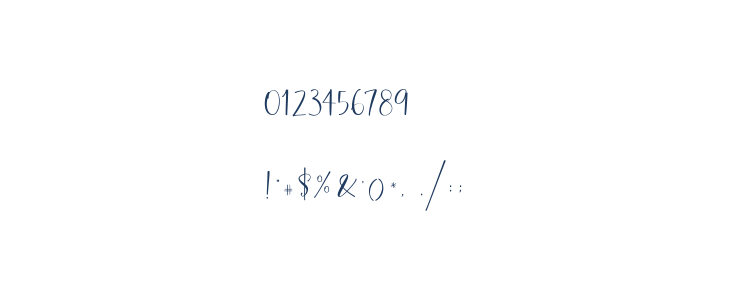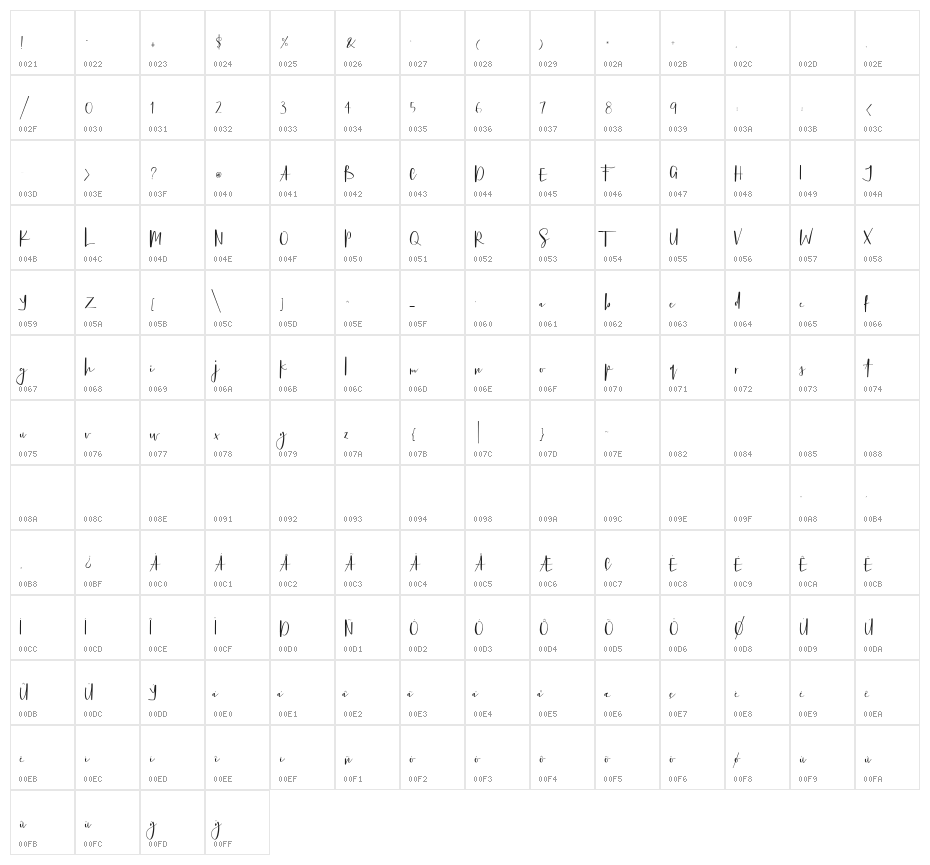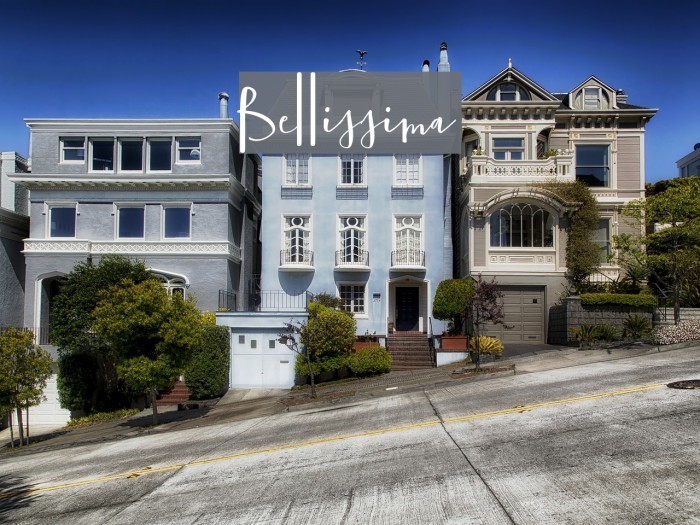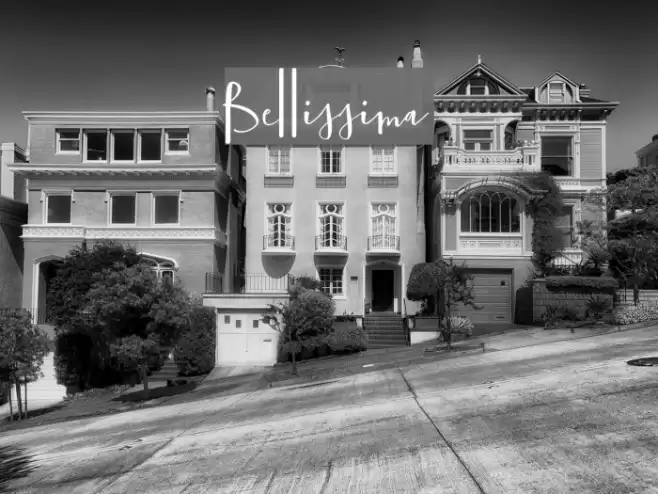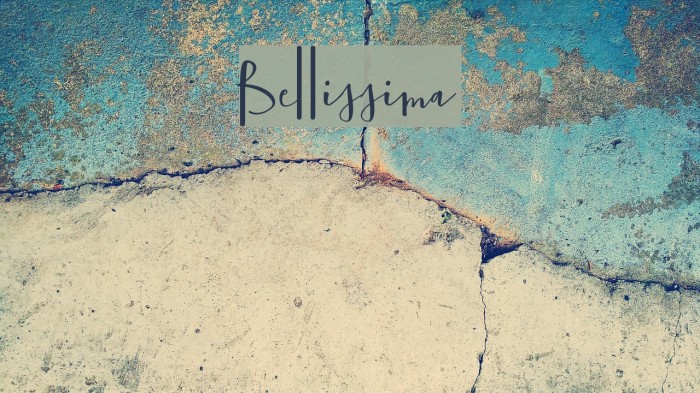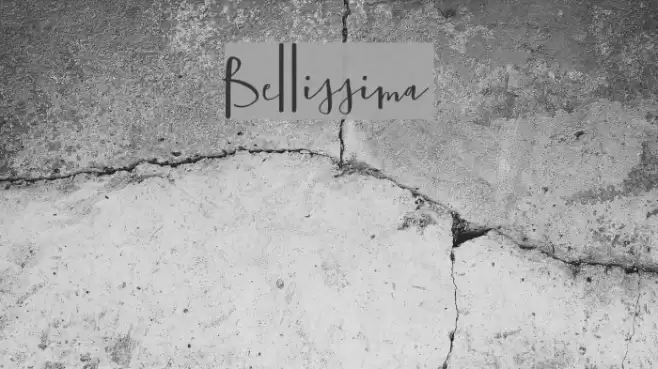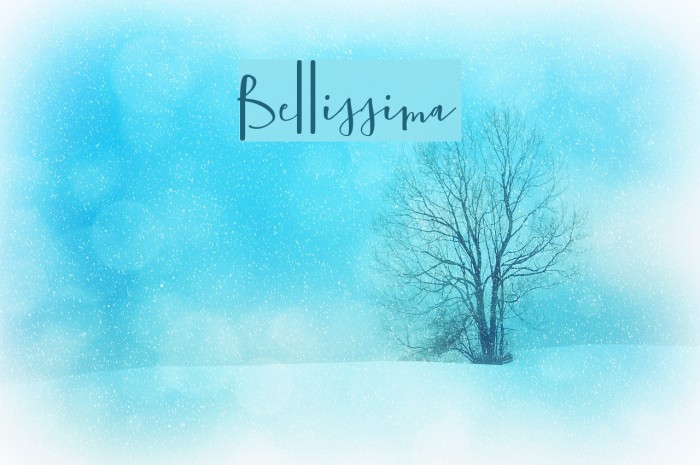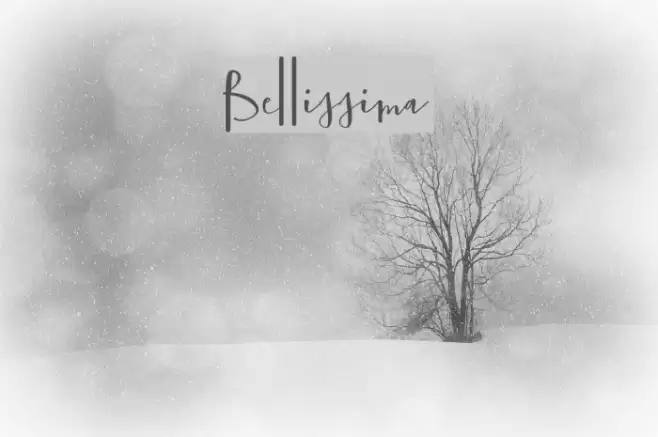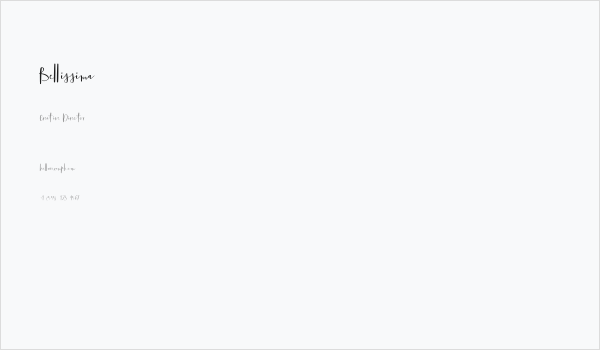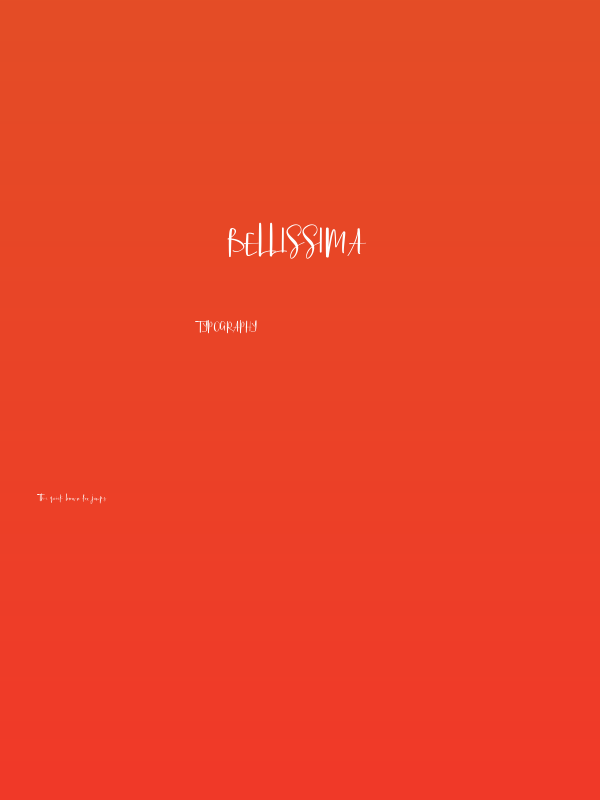
Bellissima Font
Bellissima Description
This font exudes a modern and elegant handwritten style, characterized by its flowing and graceful letterforms. The uppercase letters are tall and slender, with a slight slant that adds a dynamic feel. The lowercase letters maintain a consistent style, featuring smooth curves and delicate strokes that enhance its sophisticated appearance. The numerals are clear and legible, complementing the overall aesthetic. Special characters are thoughtfully designed, maintaining the font's cohesive look. This font's unique charm makes it suitable for a variety of creative applications.
| Proposed Projects | Ideal for wedding invitations, branding, social media graphics, and elegant packaging designs. |